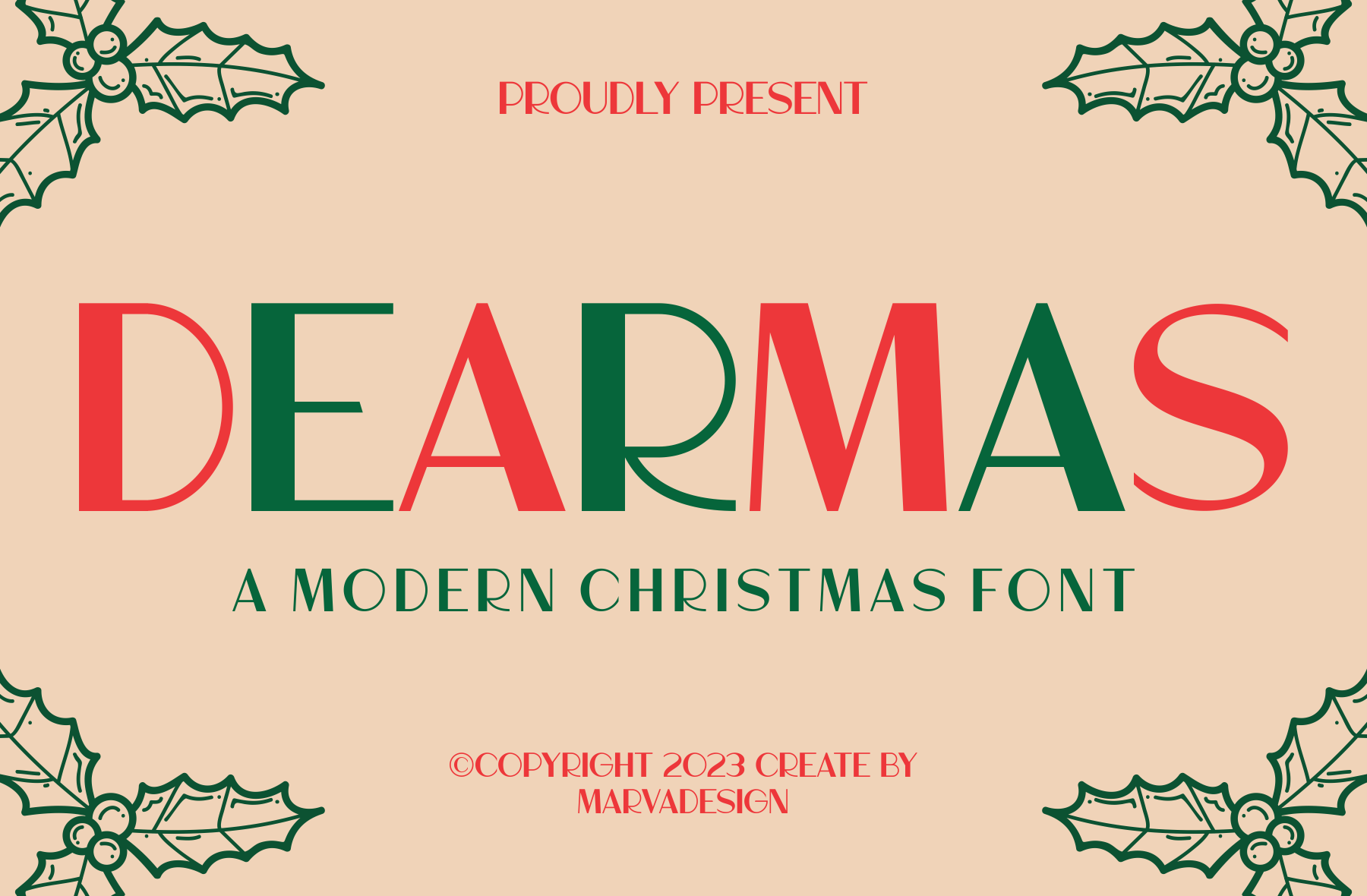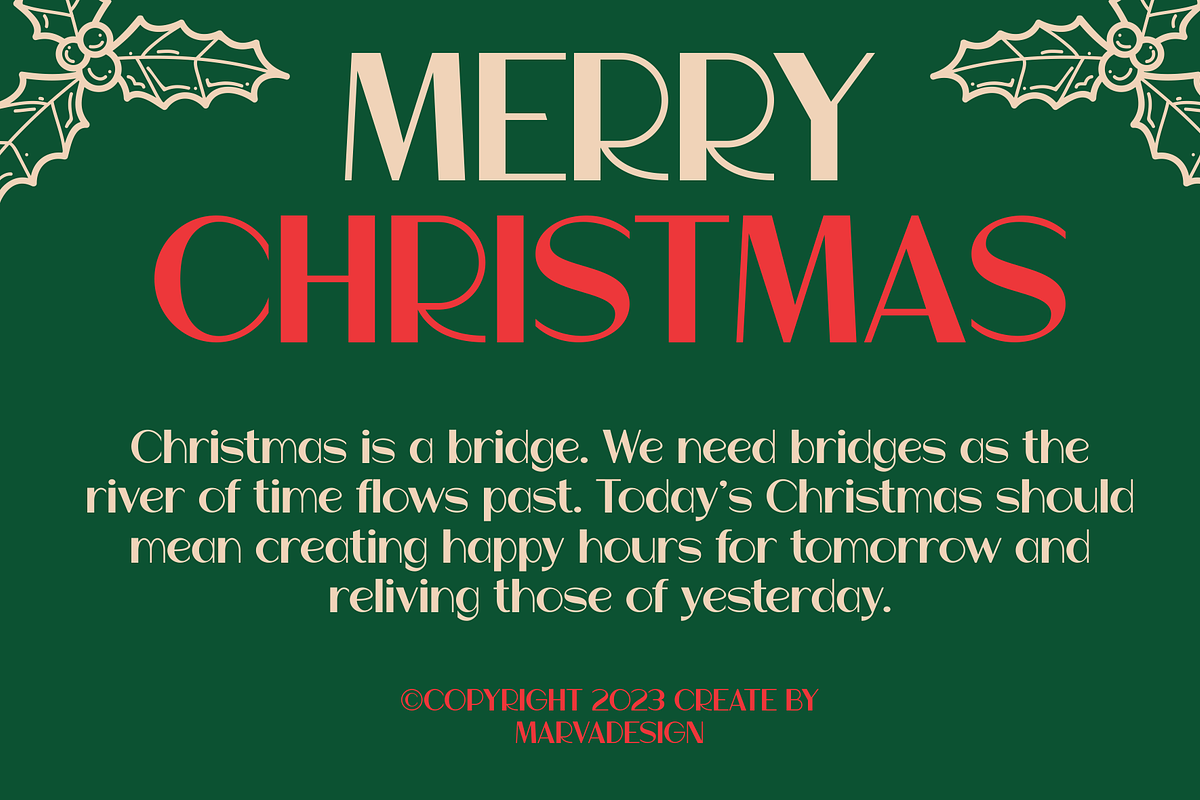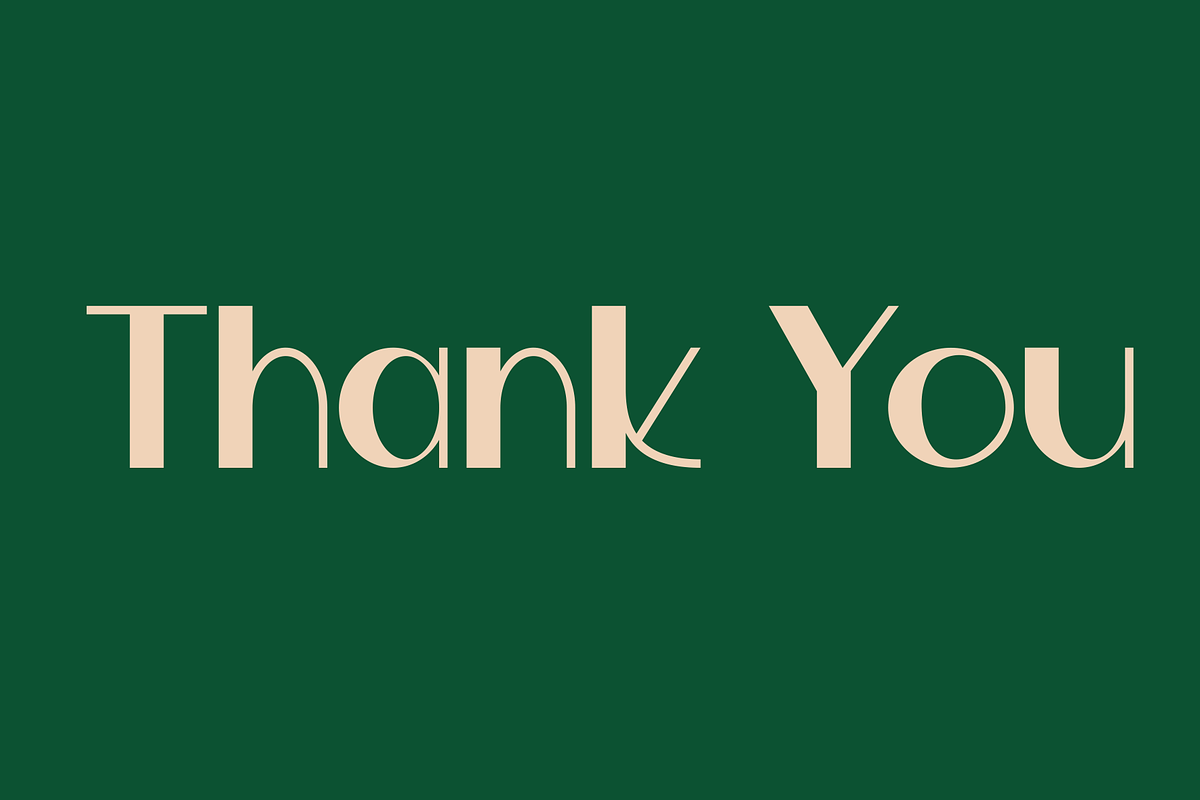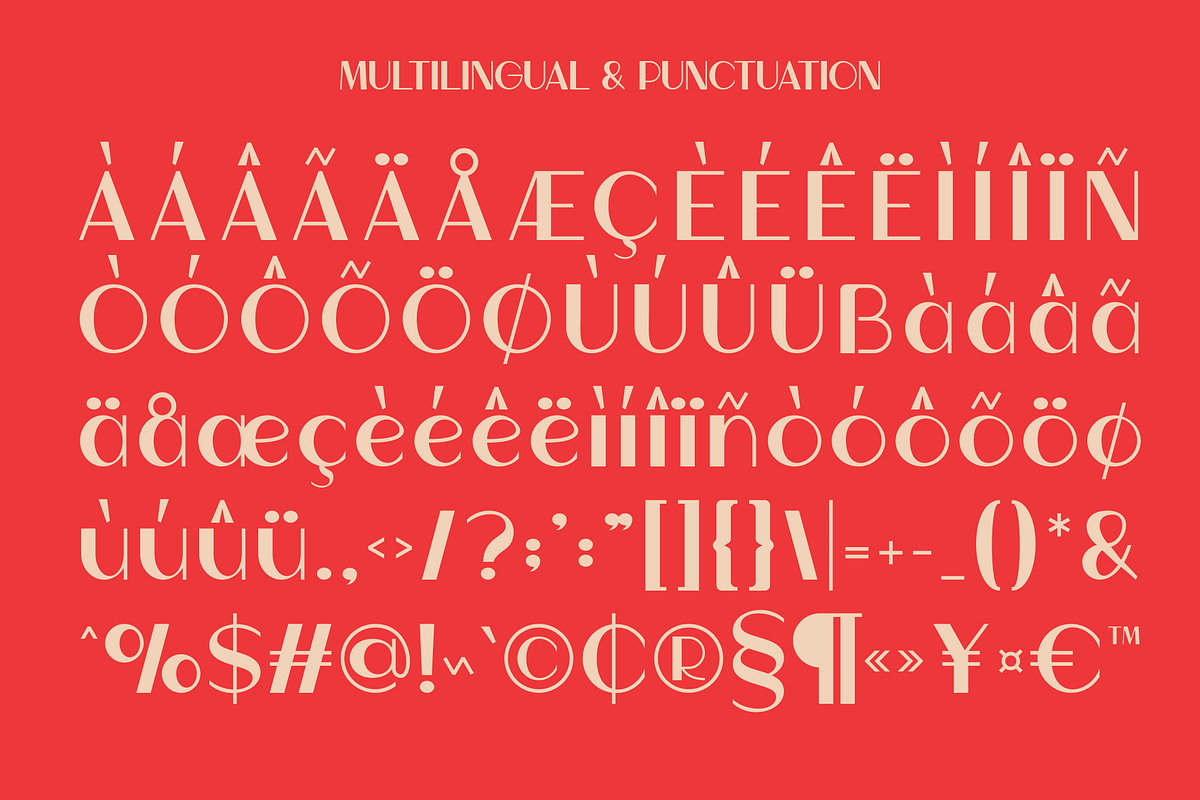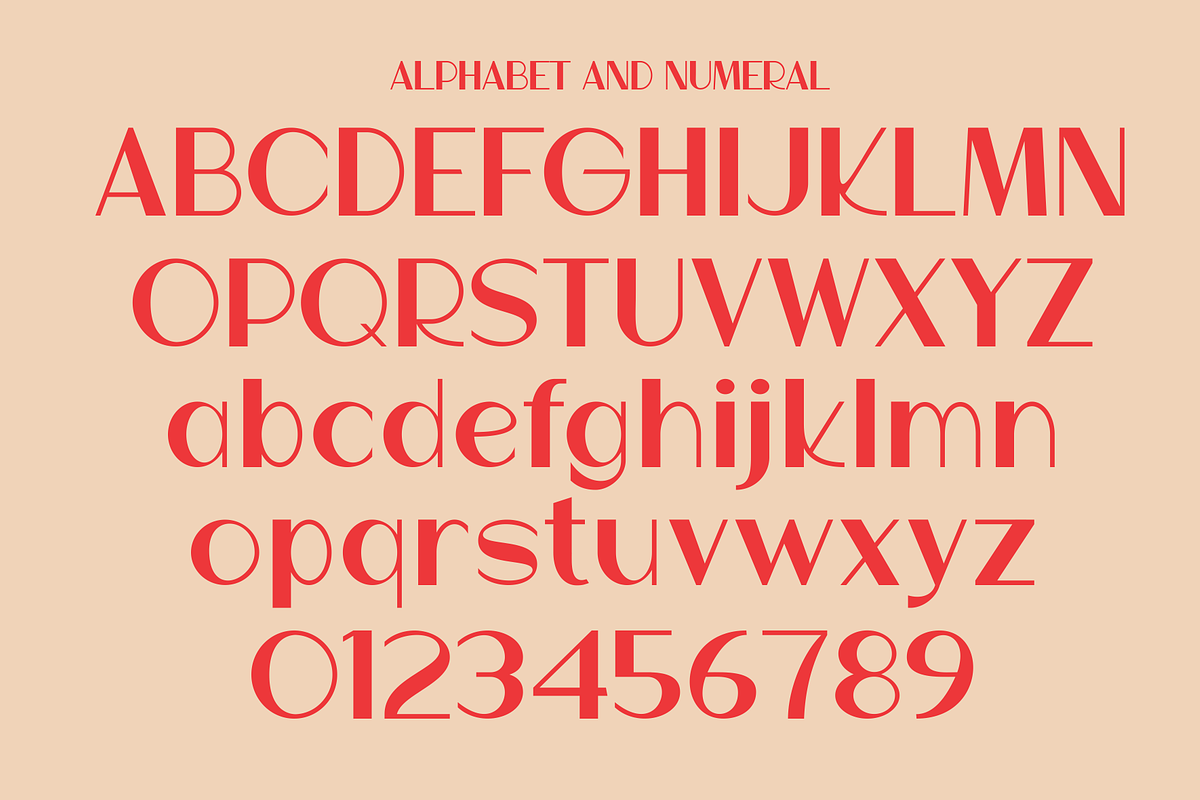
Dearmas - A Modern Christmas Font
Introducing our new product Dearmas Font - A Modern Christmas Fontauthentic display font. The font is suitable for any branding project like logo, Template Design, Product and many more. outstanding in a wide range of contexts.